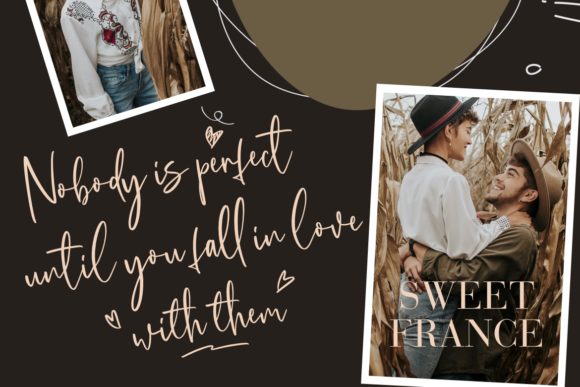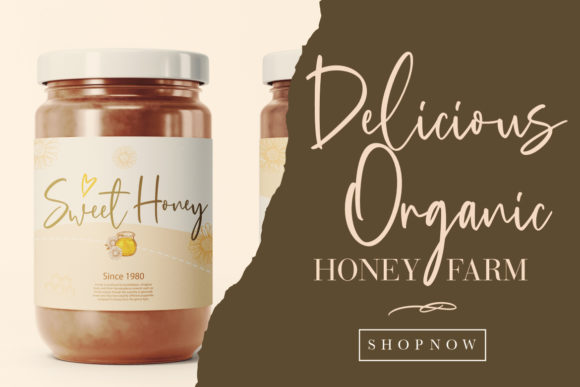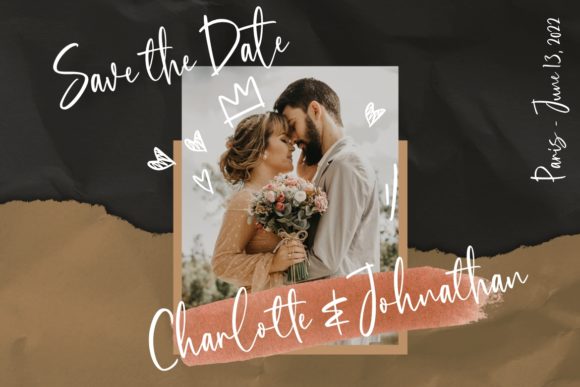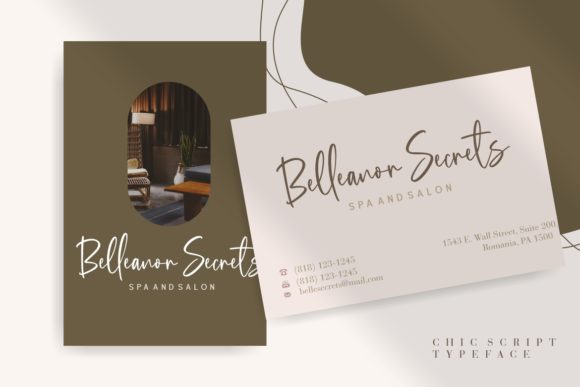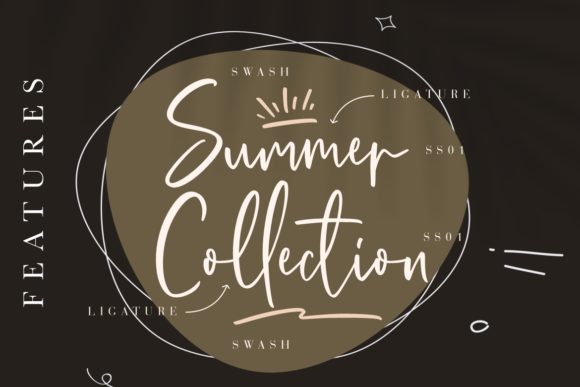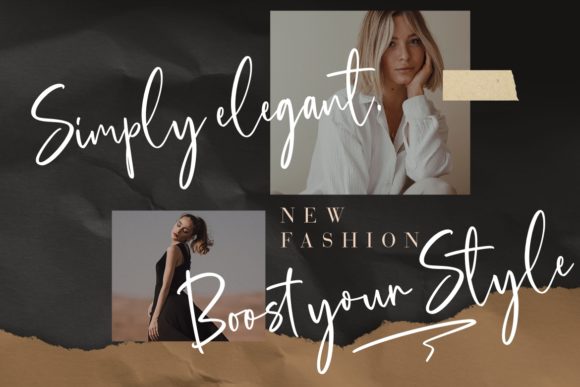
Bellagio Font: Elevate Your Designs with Elegance and Sophistication
In the world of typography, few fonts manage to strike a balance between elegance and modernity. Bellagio, an exquisite script font, is one such gem that effortlessly merges classic calligraphy with a contemporary twist. Designed to add a touch of sophistication to your projects, Bellagio is the perfect choice for designers and crafters seeking to elevate their work.
The Inspiration Behind Bellagio
Bellagio draws its inspiration from timeless classic calligraphy, boasting an impeccable form that exudes luxury and refinement. The font’s creator aimed to craft a typeface that would neither be too thin nor too thick, but rather balanced and varied in its strokes. This careful consideration results in a font that is both visually appealing and highly versatile.
Key Features of Bellagio Font
- Elegant Script Style: Bellagio’s script style is reminiscent of traditional calligraphy, with flowing lines and curves that add a touch of sophistication to any design.
- Contemporary Atmosphere: Despite its classic roots, Bellagio boasts a modern feel that makes it suitable for a wide range of applications, from branding and advertising to packaging and digital media.
- Balanced and Varied: The font’s balanced strokes and varied letterforms ensure that it remains legible and visually appealing, even at smaller sizes.
Why Choose Bellagio Font?
So, what sets Bellagio apart from other script fonts on the market? Here are just a few reasons why designers and crafters are falling in love with this elegant typeface:
- Unparalleled Versatility: Bellagio’s versatility makes it suitable for a wide range of projects, from wedding invitations and branding materials to packaging and digital media.
- Easy to Read: Despite its elegant nature, Bellagio remains highly legible, making it perfect for use in both print and digital applications.
- Unique and Memorable: Bellagio’s distinctive style ensures that your designs will stand out from the crowd, leaving a lasting impression on your audience.
Using Bellagio Font in Your Designs
Ready to incorporate Bellagio into your workflow? Here are a few tips to get you started:
- Pair with Neutral Fonts: Bellagio pairs beautifully with neutral fonts, such as sans-serif or serif fonts, to create a striking contrast.
- Experiment with Colors: Take advantage of Bellagio’s elegant style by experimenting with a range of colors, from metallic and pastel hues to rich jewel tones.
- Play with Ligatures: Bellagio’s ligatures offer a range of creative possibilities – experiment with different combinations to add a touch of whimsy to your designs.
Bellagio font is a true gem in the world of typography, offering a unique blend of elegance, sophistication, and versatility. Whether you’re a designer, crafter, or simply a typography enthusiast, Bellagio is sure to captivate and inspire. With its impeccable form, balanced strokes, and contemporary atmosphere, this exquisite script font is the perfect choice for elevating your projects and leaving a lasting impression on your audience.